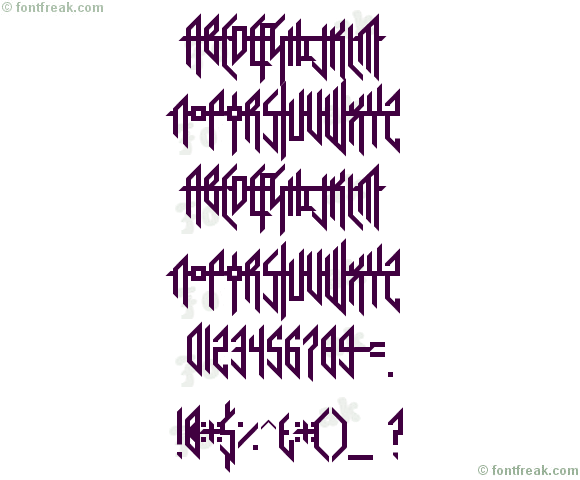
Sorrier Statements Regular
About Sorrier Statements Regular
Sorrier Statements Regular, designed by Andrew McCluskey in 2012, is a unique display font that stands out with its bold and edgy design. This typeface falls into the decorative category, characterized by its distinct letterforms that combine sharp angles and striking strokes. The font exhibits a medium stroke weight with a moderate contrast, giving it a dynamic appearance that captures attention. The spacing between the characters is thoughtfully designed, allowing for easy readability while maintaining its artistic flair.
This font is perfect for a variety of creative applications. It can be effectively used in movie posters to convey a sense of drama and intrigue, making it an ideal choice for independent films or alternative projects. Additionally, Sorrier Statements Regular is well-suited for branding materials, such as logos and product packaging, where a unique identity is essential. Graphic designers may find it appealing for use in album covers, particularly in genres that lean towards the avant-garde or experimental. Furthermore, small business owners can leverage this font in promotional materials or event signage, ensuring their message stands out in a crowded marketplace.
The target audience for Sorrier Statements Regular includes graphic designers, content creators, and small business owners who seek to make a bold statement. Its distinct style speaks to those who appreciate originality and want to break away from conventional typography.
What makes the Sorrier Statements Regular font free download particularly noteworthy is its ability to blend artistry with practicality. While it possesses a striking visual identity, it remains versatile enough to adapt to various contexts, making it a valuable asset for anyone looking to enhance their creative projects. This font not only elevates designs but also ignites inspiration, making it a standout choice in the world of typography.